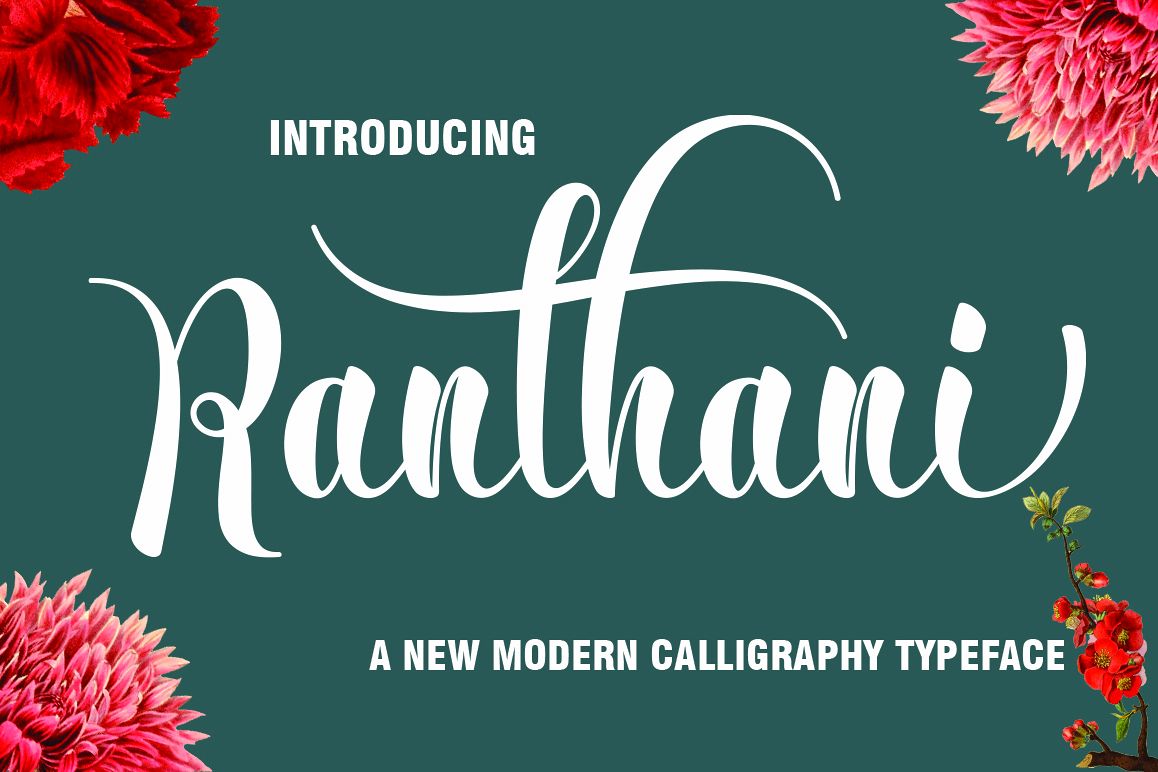
Ranthani
Ranthani Script is a stylish calligraphy font that features a varying baseline, smooth line, classic and elegant touch. Can be used for various purposes.such as headings, signature, logos, wedding invitation, t-shirt, letterhead, signage, lable, news, posters, badges etc.The Features of this fonts is:
• Standart ligatures
• PUA Unicode (Private Use Areas)